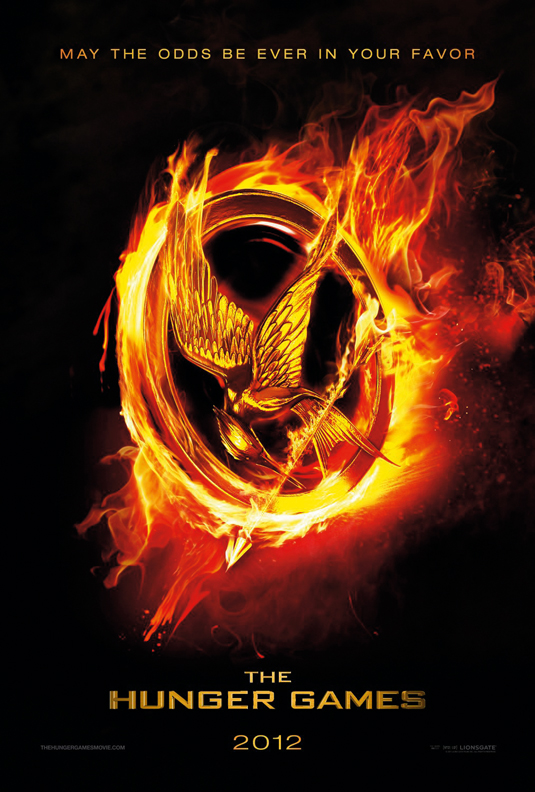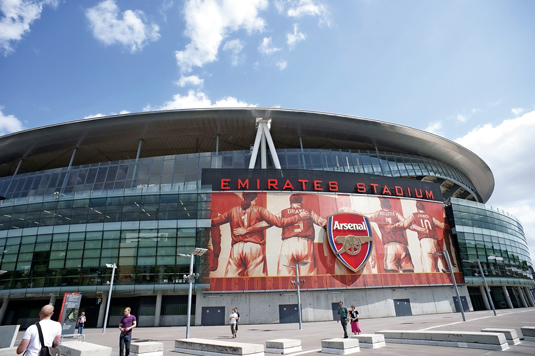
Greatest fonts countdown: 74 - Bank Gothic
We're counting down the 100 greatest typefaces in existence - here's the font at number 74.
74. Bank Gothic
- Morris Fuller Benton, 1930
Not even the great Morris Fuller Benton could resist the temptation to construct a square typeface. Georg Trump had led the way with the Berthold City typeface in 1930 and this was followed by Aldo Novarese (33 Eurostile, 1962) and most recently – with great consistency – Achaz Reuss (FF QType, 2004) and Christian Schwartz (FF Oxide, 2005).
Morris Fuller Benton took inspiration from a late-19th-century gravestone, whose inscription he recorded by taking a rubbing. He created Bank Gothic as a typeface made exclusively of small capitals. In February 2007, Linotype released a wonderfully reinterpreted and expanded version of Bank Gothic – Morris Sans – designed by Dan Reynolds under type director Akira Kobayashi. For the first time, the geometric typeface was available in three weights and two widths, with a lowercase and a huge number of extras. The new typeface takes its name from its original inventor.